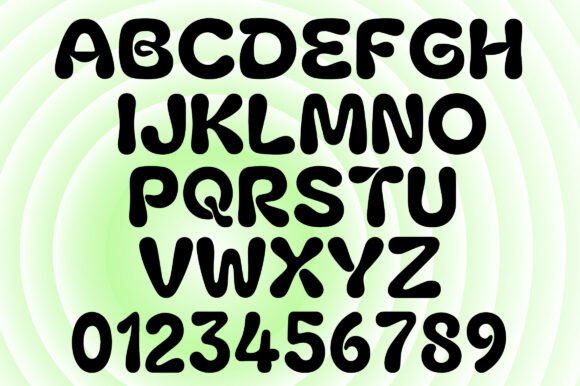
Introduction to Magic Awaits Font
Magic Awaits is a bold playful display font with a soft retro feel and charming handcrafted character.
Its uppercase letterforms feature thick rounded strokes, smooth curves, and whimsical inner cut details that create a fun, friendly, and eye-catching look Magic Awaits is perfect for branding, posters, packaging, invitations, childrenโs designs, social media graphics, book covers, and creative projects that need a sweet, cheerful, and memorable statement.
Key Features of Magic Awaits Font